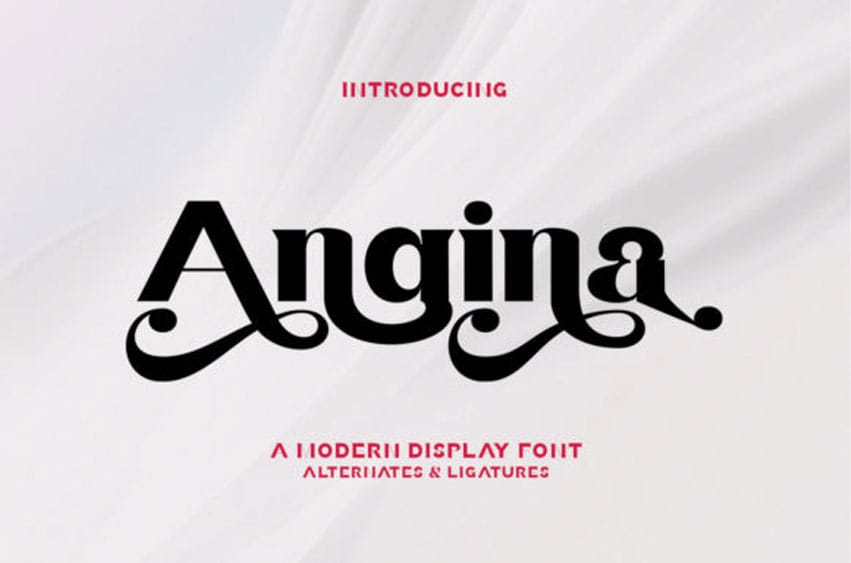
Angina Font is a luxurious, bold, and versatile serif font. It is PUA-encoded, which means you can access all the glyphs and swashes with ease!
Fall in love with its incredibly versatile style and use it to create spectacular designs!